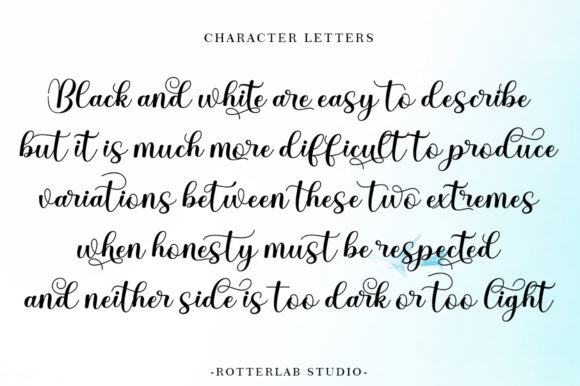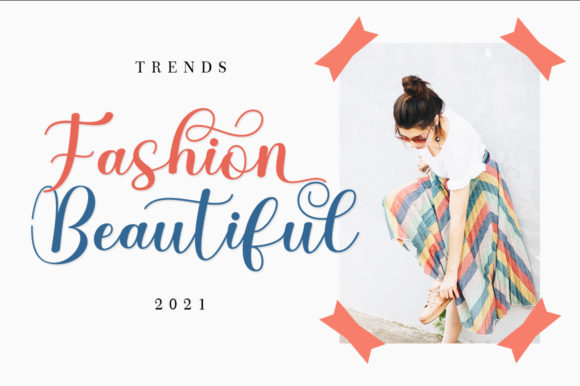
Baby Heart Font
db-ku.com - Script & Handwritten -- Baby Heart is a lovely and timeless handwritten font. It is the best choice for creating eye catching logos, branding and quotes. Every letter has a unique and beautiful touch, which will make your design come alive!